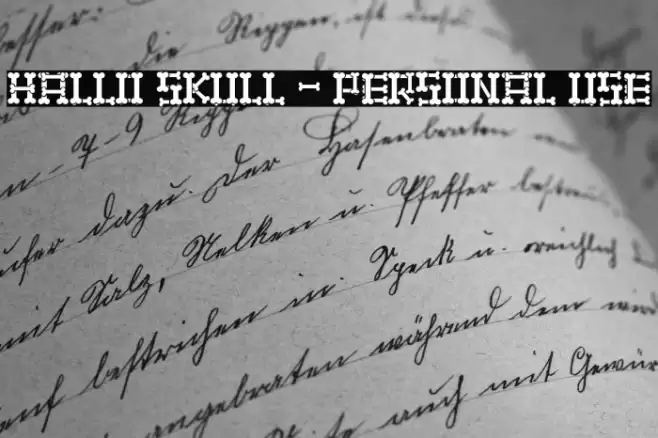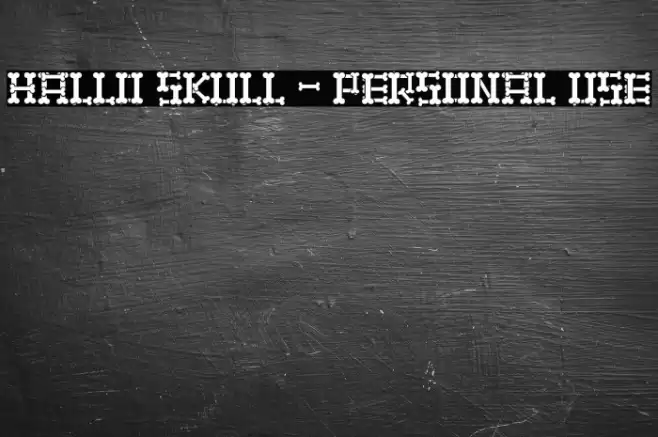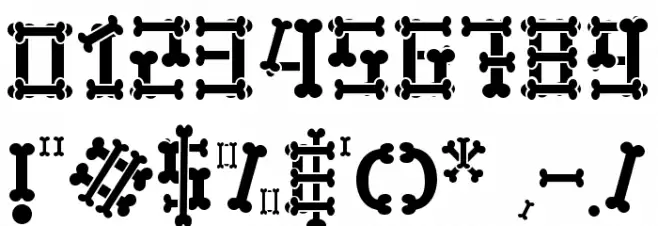
Hallo Skull - personal use Font
Hallo Skull - personal use Description
This font features a unique and playful design with a skeletal theme, incorporating bone-like elements into each character. The letters are bold and have a decorative style, making them stand out with their intricate detailing. The uppercase and lowercase letters maintain a consistent style, with rounded edges and a consistent thickness throughout. Numbers and special characters follow the same thematic design, ensuring uniformity across all elements. This font is ideal for projects that require a spooky or Halloween-themed aesthetic, offering a fun and engaging visual experience.
A bold, decorative font with a skeletal, Halloween-inspired design from Decorative fonts.
- Proposed Projects: Perfect for Halloween-themed posters, party invitations, or any project requiring a spooky, playful touch.
- Use Case: Headlines, Posters, Themed Events